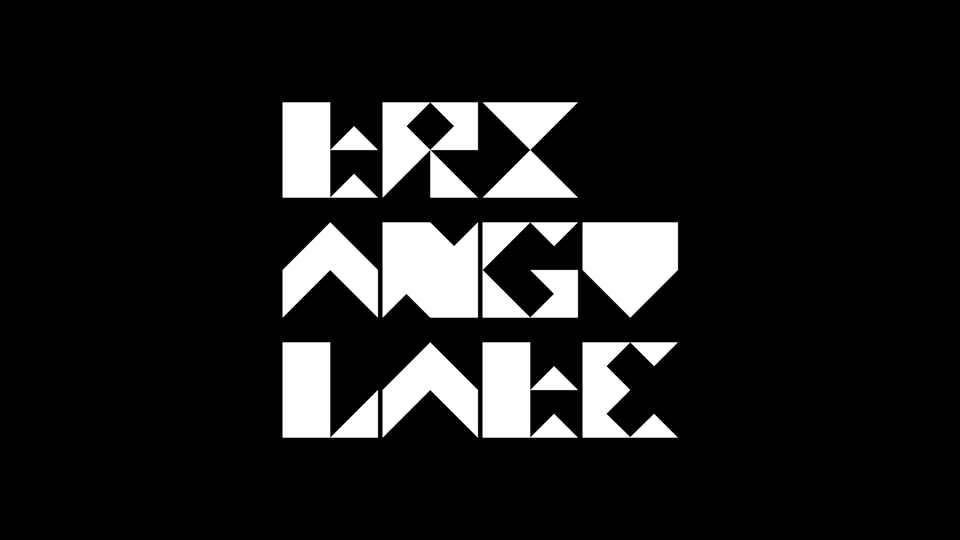
Download Triangulate font, a heavy and sharp triangular typeface based on a grid. With its dynamic look, Triangulate font is perfect for posters and large print and screen material.
Designer: Ben Dwyer